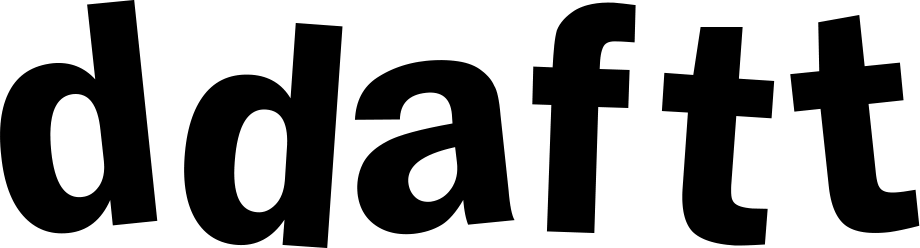
DdaftT Font
Rest assured, your typography will move further successful steps with the collaboration of this distorted font; while inspired by sans serif font style despite leaving out uppercase letters can provide satisfying results in bringing out your graphics as well.
Moreover, the company of different creative versions of this DdaftT font can prepare flexibility and diversity in the designing of posters, movie titles, product packaging, and more.